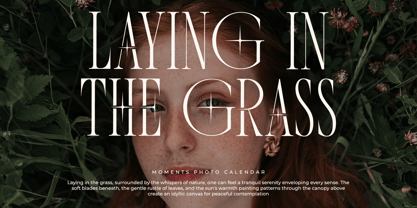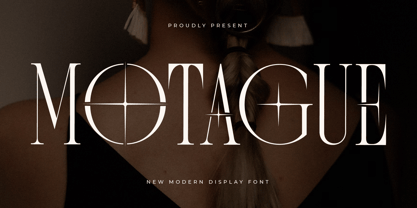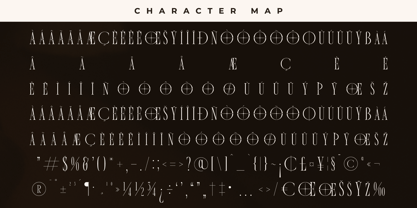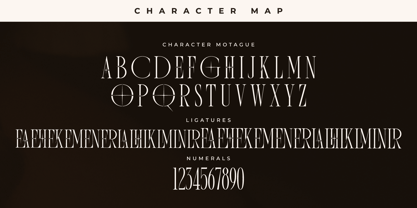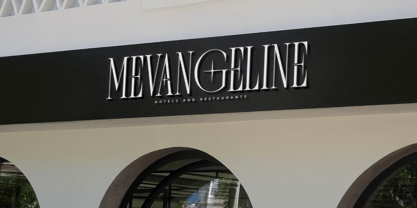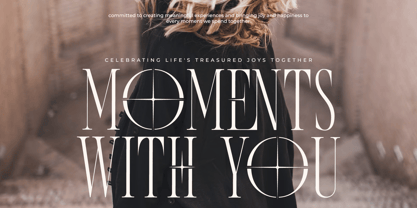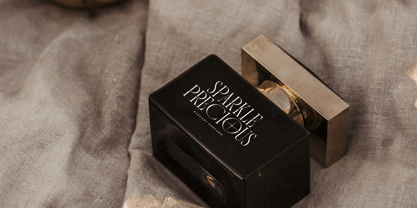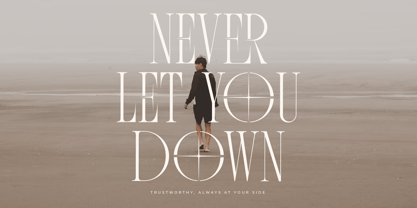
Motague
by Letterena Studios
The Motague Font Family was designed by Heru Utama Putra and published by Letterena Studios. Motague contains 2 styles and family package options. More about this family
Motague – New Modern Display Font, from Letterena, is a Luxury serif font, suitable for any projects such as: logos, branding projects, homeware designs, product packaging, mugs, quotes, posters, shopping bags, t-shirts, book covers, name card, invitation cards, greeting cards, label, photography, watermark, special events, and all your other luxury and beautiful projects that need a Luxury serif taste.